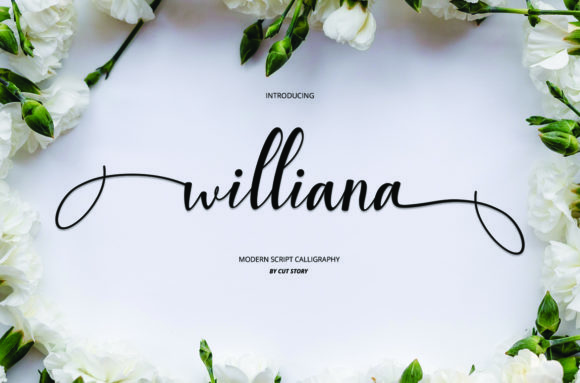
Williana Font: Elevate Your Brand Typography
As a marketing specialist, you know that every visual detail counts. When it comes to fonts, choosing the right typeface can make or break your message’s impact. Williana is a new fresh modern script font with a handmade calligraphy style — and for content creators, social media designers, and brand managers, this means an opportunity to craft more expressive and engaging digital experiences. With its elegant curves and natural flow, Williana brings warmth and personality to your designs while maintaining clarity and professionalism.
Williana for Instagram Reels Covers and Social Media Graphics
In today’s fast-scrolling feeds, thumbnails and reel covers must grab attention in under a second. Williana helps you stand out with its fluid, handwritten aesthetic that feels both contemporary and personal. Use it for bold headlines on YouTube thumbnails or as a decorative accent in Instagram Stories to create a sense of authenticity and luxury. Its PUA encoding ensures that all amazing glyphs and swashes are accessible with ease, letting you customize text without technical hurdles. Whether you’re launching a product or sharing a brand story, Williana adds a touch of sophistication that resonates with audiences.
Why It Works for Short Text and Callouts
Script fonts like Williana are best used in short bursts where legibility isn’t compromised by length. This makes it perfect for call-to-action buttons, promo banners, and quote graphics. For example, a campaign teaser could use “Sale Ends Soon” in Williana paired with a minimalist sans serif caption to balance creativity and clarity. The font’s wea (weathered) features add subtle texture, making it feel handcrafted and ideal for lifestyle brands, wellness campaigns, or artisanal products that value a human touch.
Williana in Website Banners and Landing Pages
For online shop promotions or webinar banners, typography plays a key role in shaping user experience. Williana offers a premium font option that enhances first impressions and supports brand recognition. Its modern script style works well in hero sections where you want to convey trust, elegance, or exclusivity. Pair it with a clean sans serif body font to maintain readability and ensure that your message is both stylish and scannable. As a display font, Williana excels at creating visual hierarchy, especially when used in combination with contrasting weights or sizes for subheadings.
Designing with Williana for Brand Consistency
Brand identity is built through repetition and consistency. Using Williana across your digital assets — from website headers to Pinterest pins — reinforces your visual language. If your brand voice is warm, approachable, and creative, Williana aligns perfectly with those values. Its unique character set allows for varied expressions without losing coherence, so you can design promotional materials, email headers, and even packaging mockups with confidence. Just remember to always check commercial licensing if you plan to use it in templates or client work.
Williana for Product Launches and Seasonal Promotions
Product launches require a blend of excitement and professionalism. Williana bridges that gap with its fresh, modern look and the allure of handmade calligraphy. Imagine using it in a teaser graphic that reads “Something New is Coming…” — the softness of the script invites curiosity while the structured base keeps it readable. Similarly, during seasonal campaigns, Williana can help you create holiday greetings, limited-time offer titles, or event posters that feel exclusive and inviting. The font’s versatility allows it to adapt to different moods, whether you're going for romantic, nostalgic, or just simply refined.
Creating Memorable Campaign Visuals with Williana
Strong typography can elevate your campaign visuals from forgettable to iconic. Williana gives you the tools to build brand recognition through consistent, beautiful letterforms. For instance, if you’re designing a series of blog posts or video content, using Williana for each title creates a unified look that viewers begin to associate with your brand. You can also use it in logo design for a boutique or personal branding projects to add a signature element that stands out yet remains professional. Always test how it looks on mobile screens — since many users scroll on phones, readability in small previews is essential.
Williana in Email Headers and Digital Ads
Email marketing thrives on clear messaging and strong visual appeal. Incorporating Williana into your subject lines or headers can give your emails a more personal and artistic edge. However, it’s important to pair it with a simpler font in the body copy for better readability. In digital ads, Williana can be used for headlines to draw attention while keeping supporting text in a clean, easy-to-read format. The font’s PUA-encoded nature makes it easy to insert custom symbols and ligatures, helping you create visually rich ad creatives that don’t sacrifice performance.
How Williana Supports Readability in Fast-Scrolling Feeds
Even though Williana is a script font, its modern design ensures it doesn’t become too ornate or difficult to read. This balance is crucial for marketers who need their messages to be understood quickly. For best results, limit its use to larger headline sizes and avoid overusing it in dense paragraphs. A great tactic is to apply it selectively in key phrases or taglines within your content series. This not only improves visual interest but also guides the viewer’s eye toward the most important parts of your design.
As a marketing specialist, your goal is to communicate effectively and leave a lasting impression. Williana is a new fresh modern script font with a handmade calligraphy style that does exactly that. From social media graphics to website banners, this font is a versatile addition to your design toolkit. Whether you’re working with freebies or paid design assets, understanding how to use Williana in real campaign contexts will help you create more compelling visuals. Keep experimenting with font pairing, stay mindful of readability, and always align your choices with your brand’s core message.